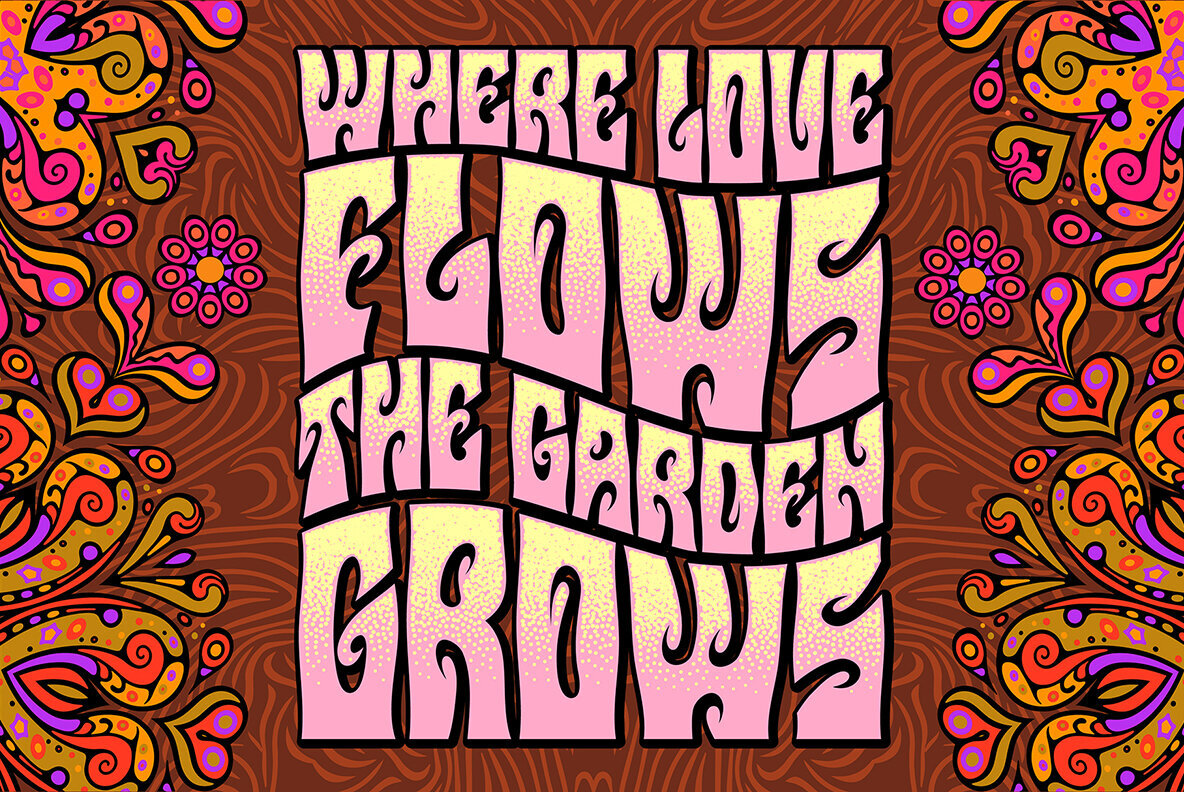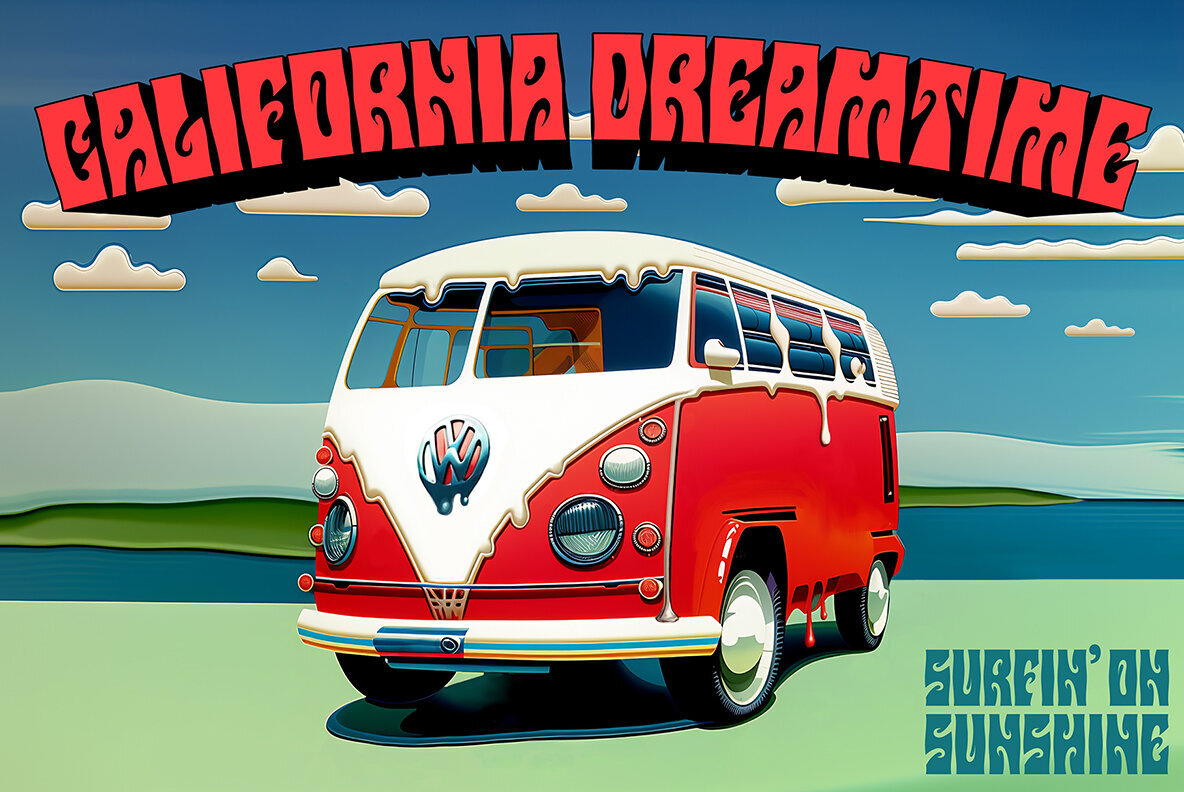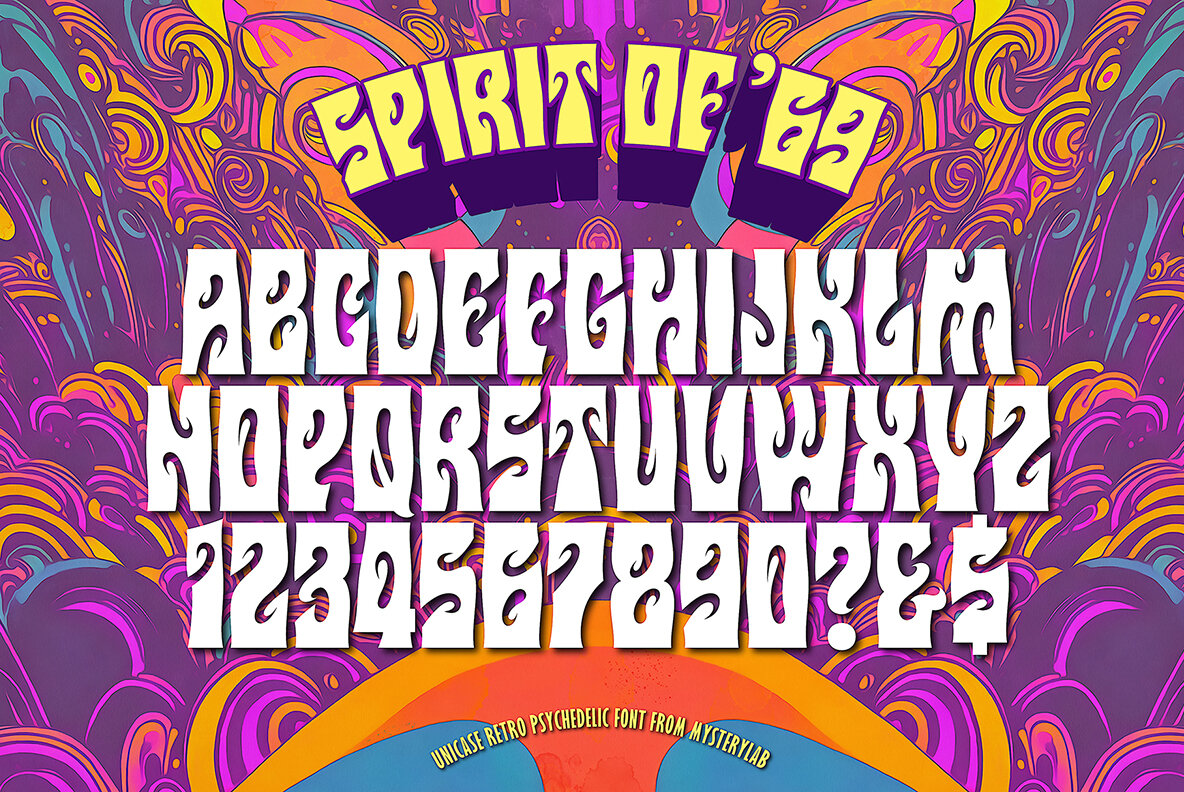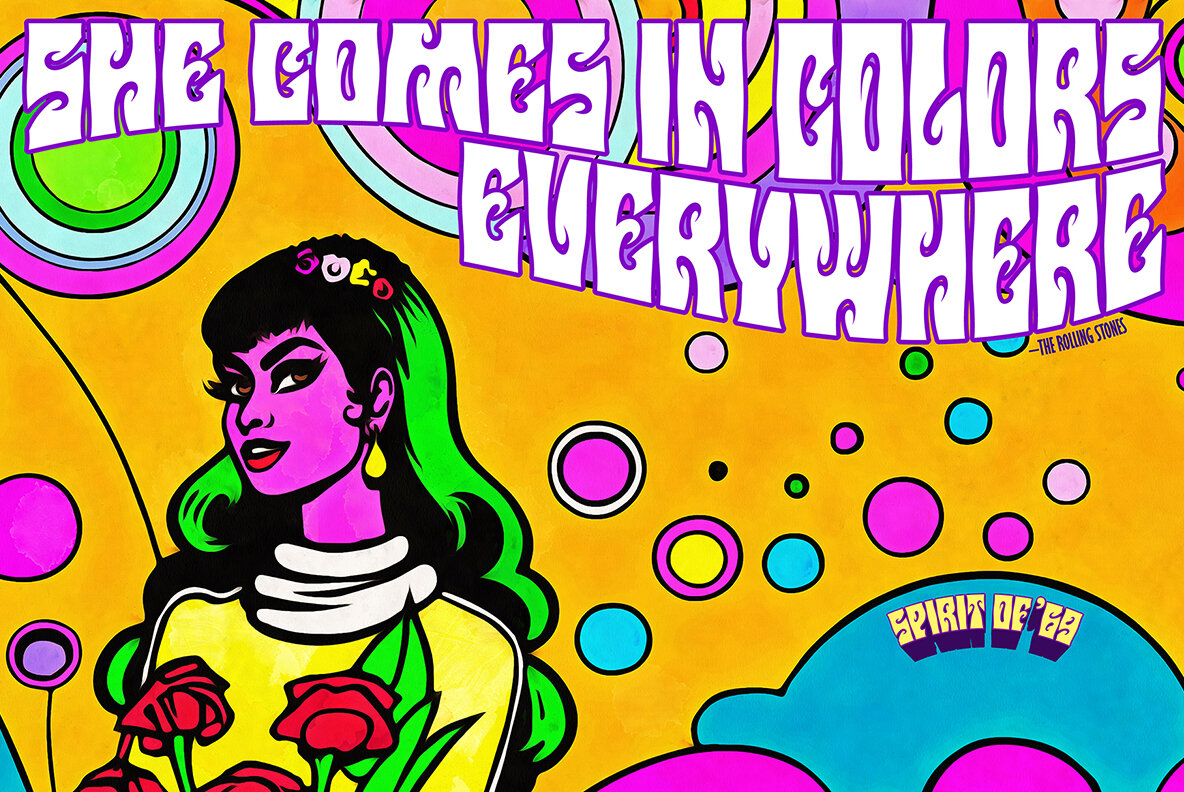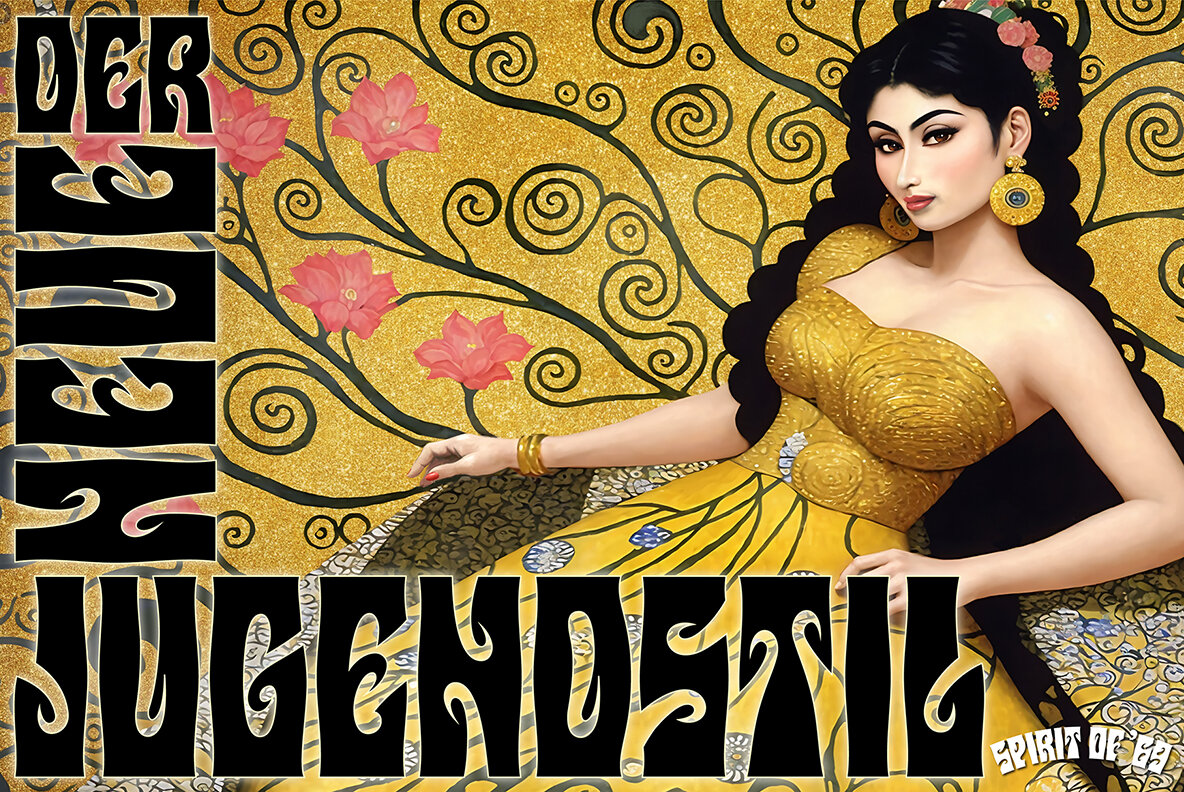
Spirit of 69 Font
Spirit of 69 Regular
Here's a lively new take on the swirly psychedelic type we all know and love, Spirit of '69 brings in some subtle dimensions of waviness to the vertical strokes, upslanted horizontal strokes, and alluring paisley shapes formed out of the negative spaces. This is a unicase font, in the grand tradition of the Art Nouveau lettering of the early 20th century, and the melty groovy fonts of the 1960s. Lots of fun and beautiful too!